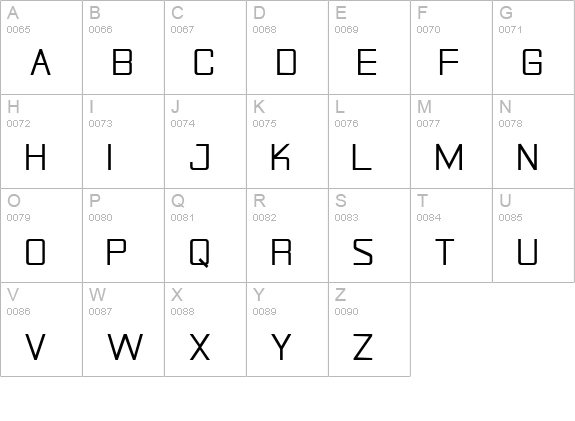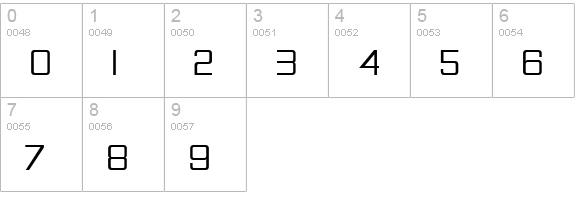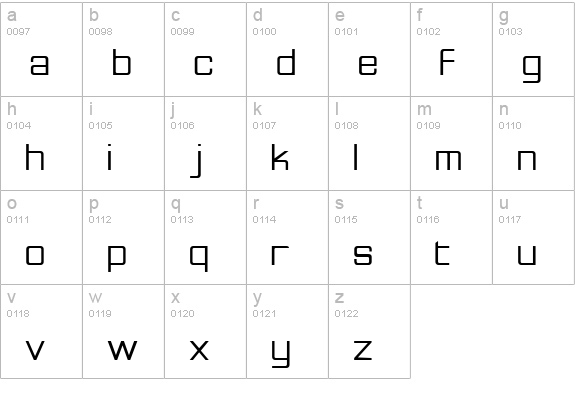
Rational Integer Font Details
Rational Integer font is a beautifully designed typeface that combines elegance and simplicity. With its clean lines and balanced proportions, this font exudes a sense of modernity and sophistication. Each character is meticulously crafted to ensure legibility, making it perfect for both print and digital projects. The Rational Integer font offers a wide range of weights and styles, allowing for versatile usage across various design applications. Whether you're creating a sleek logo, designing a professional website, or crafting an eye-catching brochure, this font will effortlessly elevate your designs to new heights. One of the best things about the Rational Integer font is that it is free. That's right, you can download this incredible font without spending a dime. Thanks to its availability on FontsMarket.com, you can easily access this font and unleash your creativity without breaking the bank. So why wait? Don't miss out on this amazing opportunity to enhance your design projects with the Rational Integer font. Download it for free today at FontsMarket.com and witness the transformative power it brings to your designs.